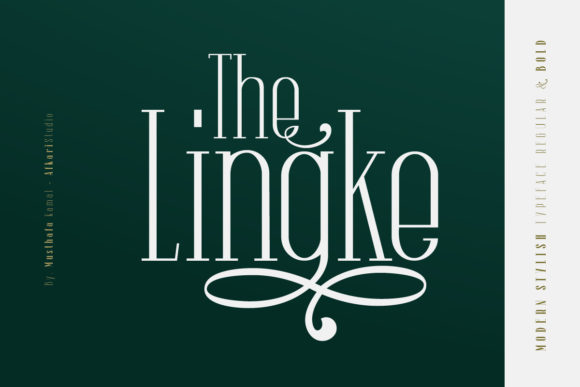
**Introducing The Lingke Font: The Ultimate Serif for Modern Logos**
Prepare to be mesmerized by The Lingke Font, an enchanting serif typeface that exudes elegance, distinction, and style. Its exquisite curves and captivating details will ignite your creativity and elevate your designs to breathtaking new heights.
Crafted with the utmost care by afkaristudio, The Lingke Font is a symphony of timeless beauty and modern flair. Its ravishing style will captivate your audience, leaving an unforgettable impression that lingers long after they've encountered your creations.
Immerse yourself in a world of possibilities with The Lingke Font. Its versatility knows no bounds, seamlessly adapting to an array of design projects. From sophisticated wedding invitations that evoke timeless romance to captivating social media posts that demand attention, this font will transform your words into works of art.